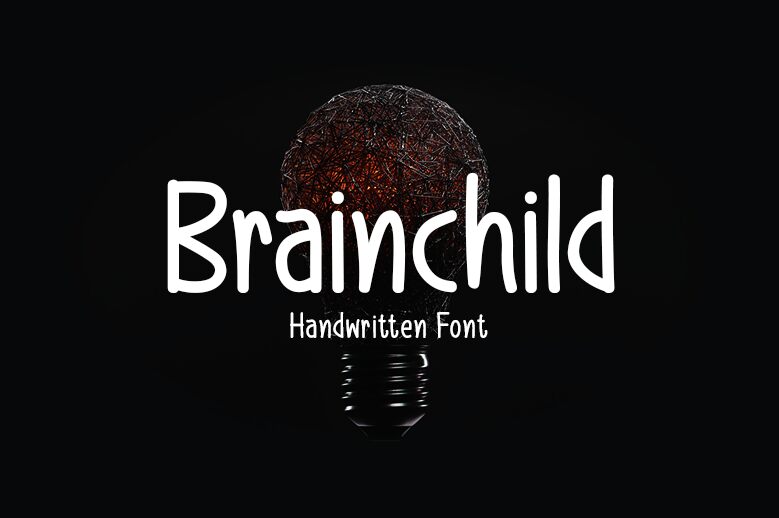
Brainchild is a captivating handwritten font that exudes a charming, artisanal aesthetic. Designed by Md Shohail Bhuian, this condensed typeface boasts a distinctive flair, with each letter crafted to evoke a sense of organic, human expression. The fluid, dynamic strokes and seamless ligatures create a harmonious, cohesive visual rhythm, lending a touch of authenticity and personality to any design.
Brainchild's versatility shines through, making it a versatile choice for a wide range of applications, from editorial layouts and packaging to branding and digital interfaces. Its handcrafted charm lends itself particularly well to projects that aim to convey a sense of authenticity, artistry, or a personal, handmade touch. Whether you're crafting a visually striking poster, designing an impactful logo, or seeking to infuse your digital content with a touch of human warmth, Brainchild is a font that can elevate your creative vision.